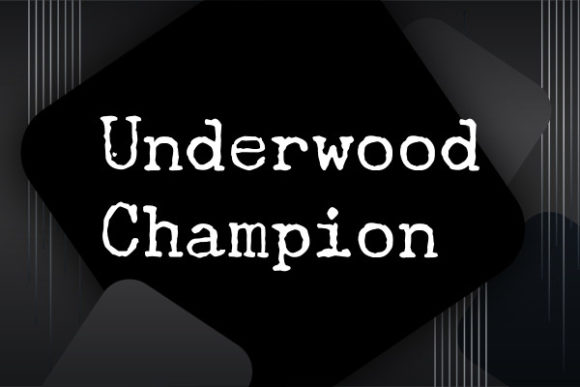
Underwood Champion: A Superb Slab Serif Design
Underwood Champion is a superb slab serif design that offers a natural and classic appearance. Created by Vic Fieger, this font will enhance your product, giving it a lead against its competition. Its timeless style makes it perfect for a wide range of design applications.
Key Features of Underwood Champion
- Classic Design: Offers a timeless and authentic look suitable for various applications.
- Slab Serif Structure: Features distinctive serifs that add character and readability.
- Natural Appearance: Brings a genuine and organic feel to designs.
- Competitive Edge: Enhances products to stand out in the market.
Ideal Uses for Underwood Champion
Underwood Champion’s unique characteristics make it particularly well-suited for:
- Vintage-inspired branding and logos
- Editorial designs and book covers
- Packaging designs for artisanal products
- Retro-style advertisements and posters
- Website headers and digital content
- Historical or period-specific designs
- Letterpress and print projects
When incorporating Underwood Champion into your designs, consider these tips:
- Use for headlines or body text to showcase its classic style.
- Experiment with different sizes to highlight the font’s distinctive features.
- Consider pairing with modern sans-serif fonts for an interesting contrast.
- Utilize its natural appearance to add authenticity to your designs.
Underwood Champion is an excellent choice for designers looking to add a classic and natural slab serif font to their typographic toolkit. Its ability to enhance products and give them a competitive edge makes it stand out in the world of typography. Whether you’re working on branding projects, creating editorial layouts, or developing content that requires a touch of timeless elegance, Underwood Champion offers the perfect blend of style and functionality.
Furthermore, Underwood Champion’s unique design allows it to shine in various contexts. From vintage-inspired designs to more contemporary layouts that need a touch of classic charm, this font can elevate your projects. Its natural yet refined style works particularly well in designs that aim to evoke a sense of authenticity and tradition.
In conclusion, Underwood Champion is a font that truly captures the essence of classic typography with a modern twist. Its ability to work well in both traditional and contemporary settings showcases its versatility. For those looking to add a touch of timeless charm to their work, Underwood Champion can enhance themed creations with its distinctive style. It’s the perfect choice for designers seeking to make a strong, classic impact across a wide range of creative projects.